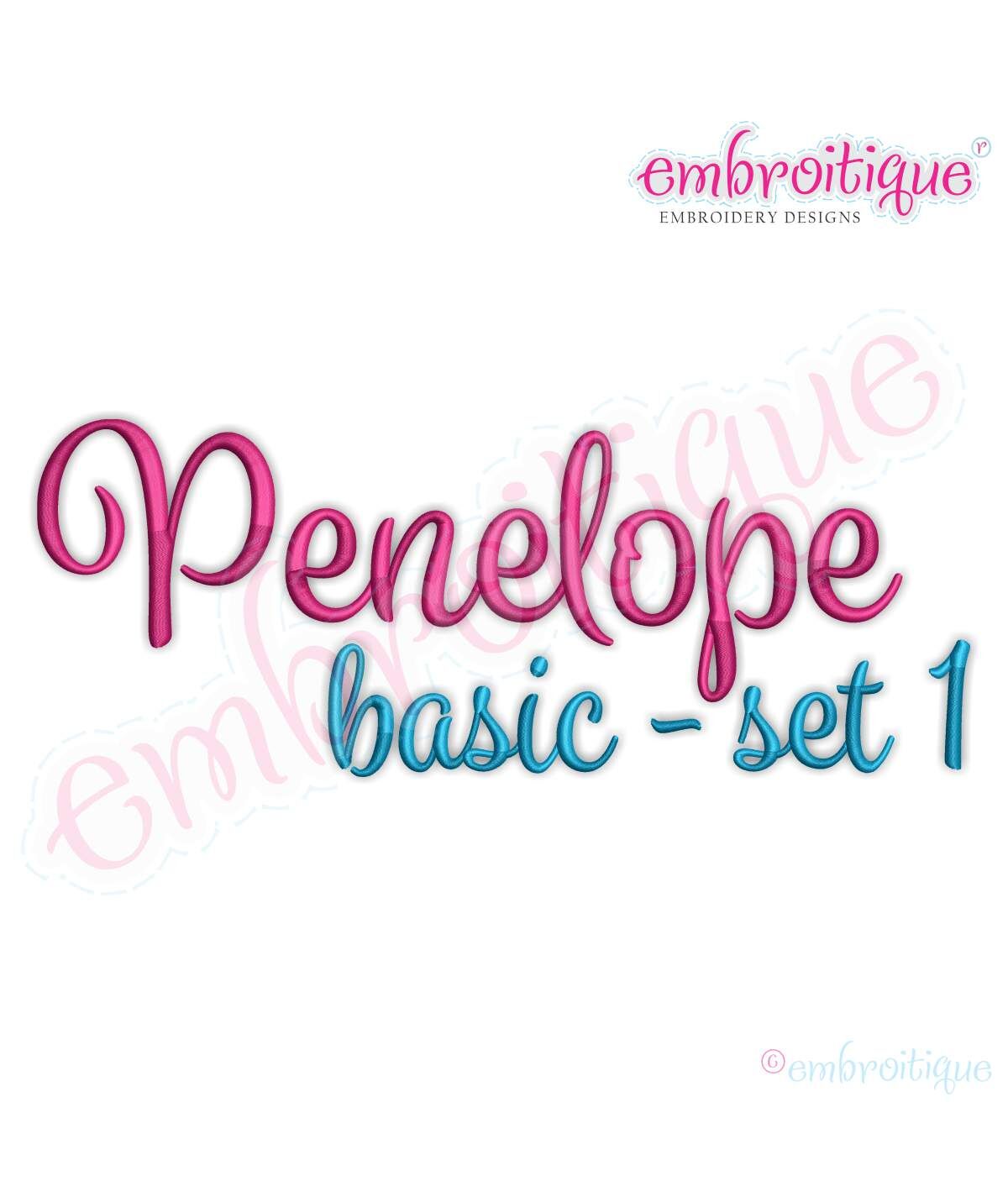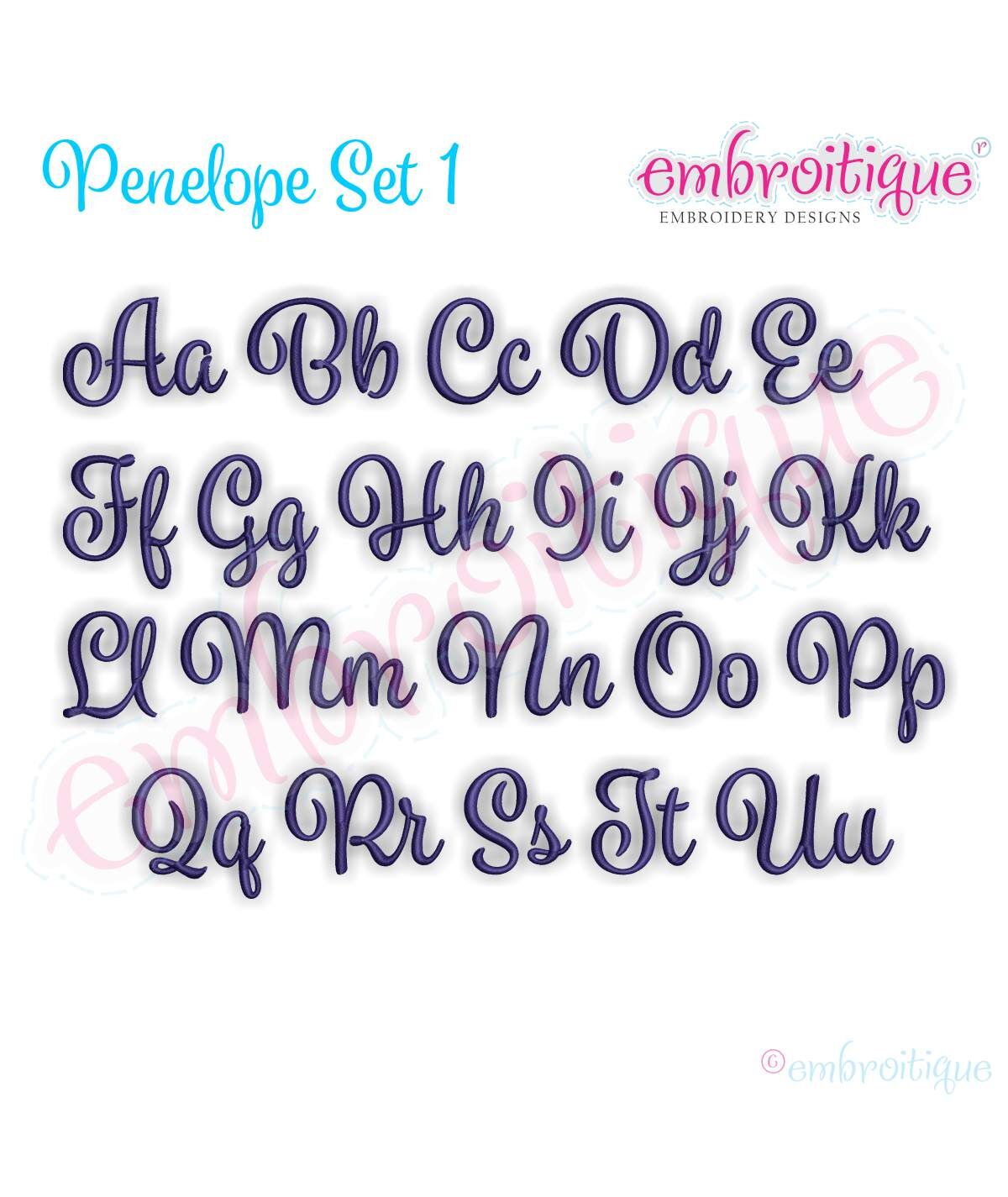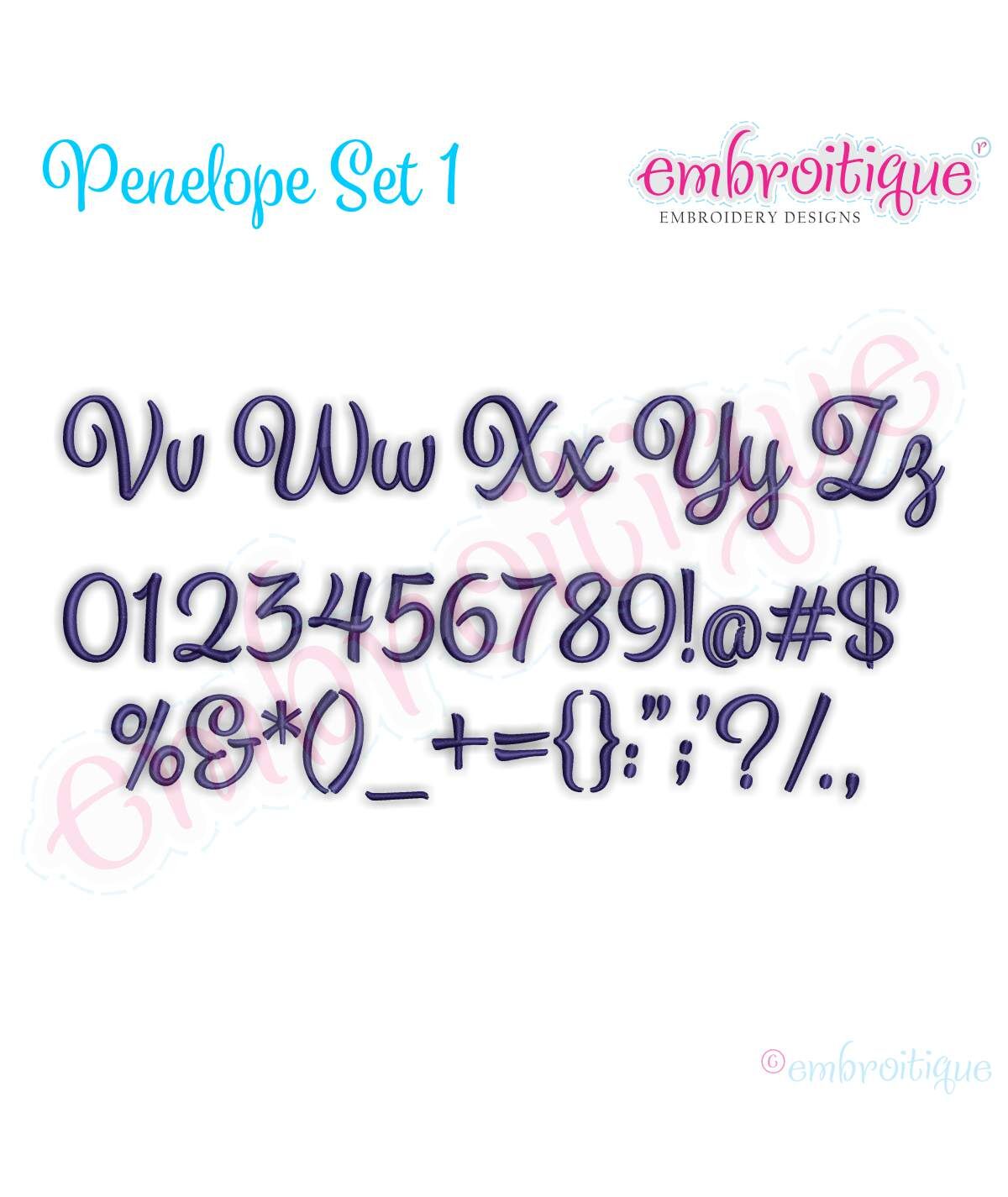
Penelope Set 1 - Calligraphy Script Monogram Alphabet Font for Machine Embroidery
This is the "basic" set in our interchangeable "Penelope" collection. Simply stunning on it's own, however - Pair this with the penelope Capital Letter & Lower Case Letter alternates sets (sold separately) to create beautiful wording and names a hundred different ways! This set will be one of your favorite "go-to" sets for years to come!